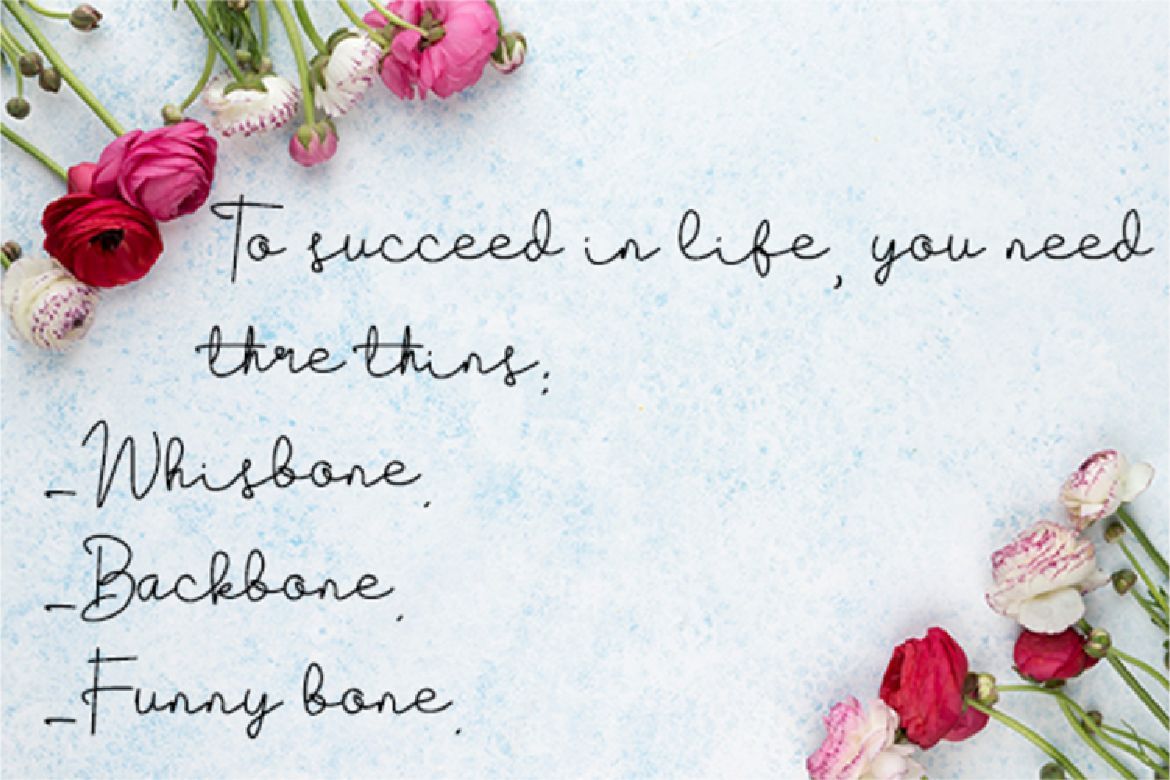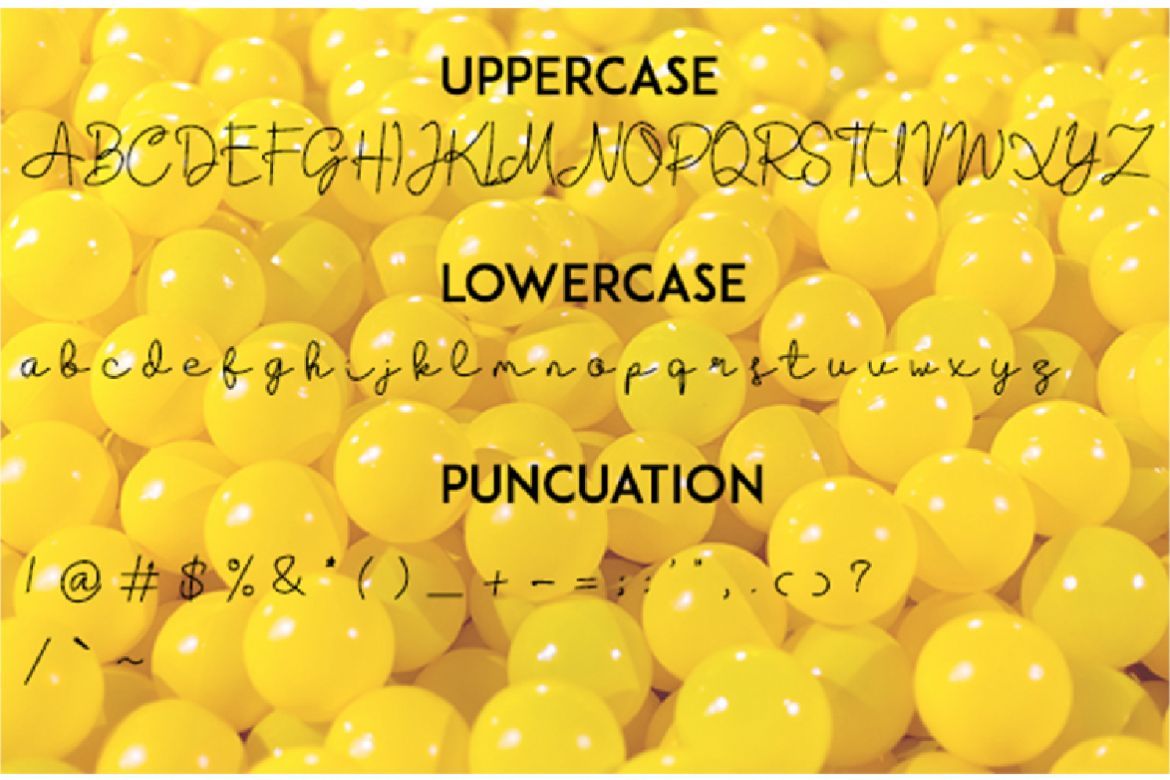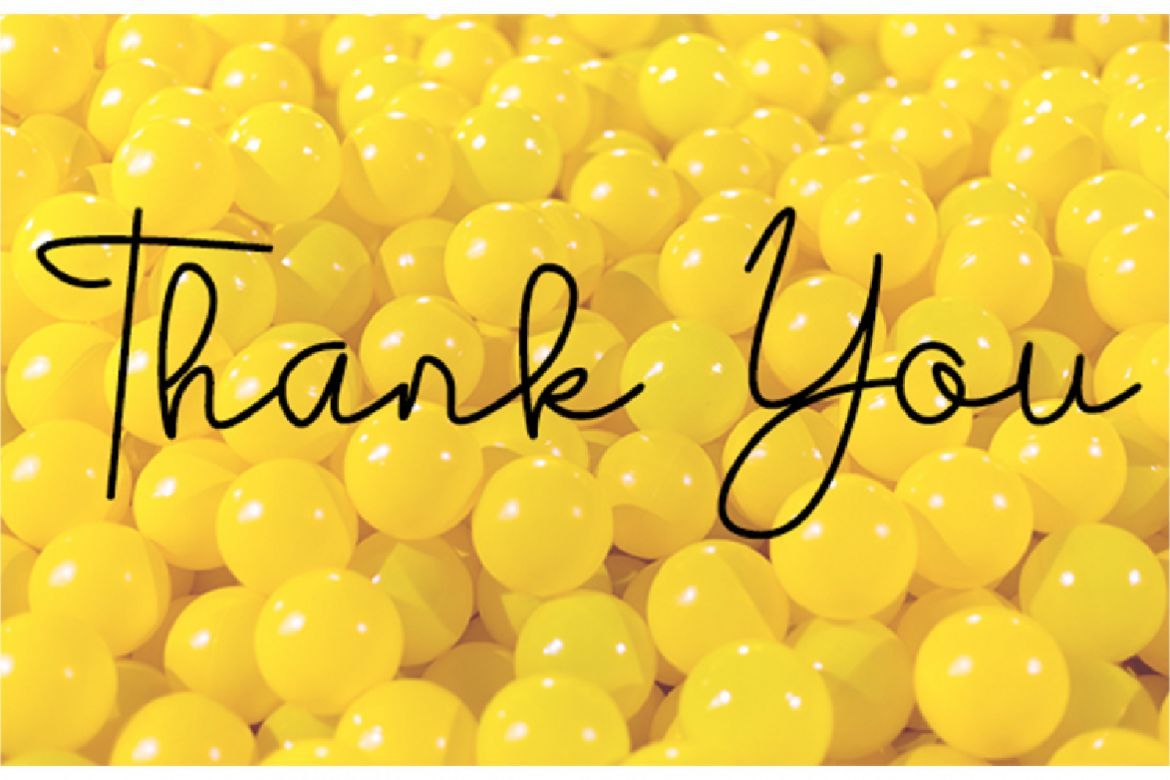
Gluttony - Script and Handwritten Font
Gluttony is script and handwritten font. This font is perfect for your any project such as signature, typography, book cover, wedding invitation design, etc.